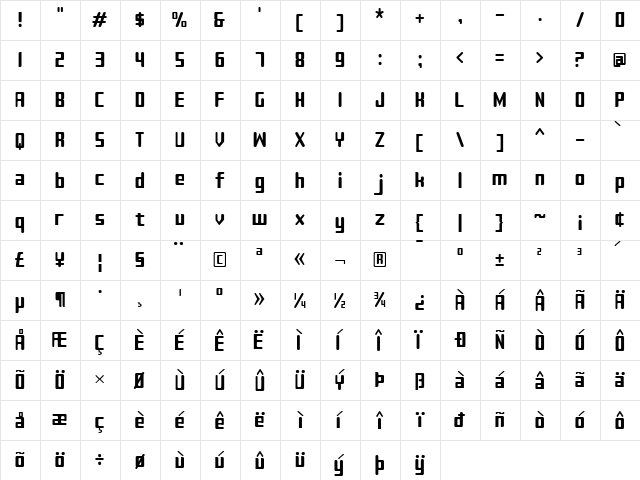
Sujeta Regular
Design Context for Sujeta Typeface
Sujeta takes a measured approach to typography — its balanced proportions and neutral character make it a reliable workhorse for both digital and print work.